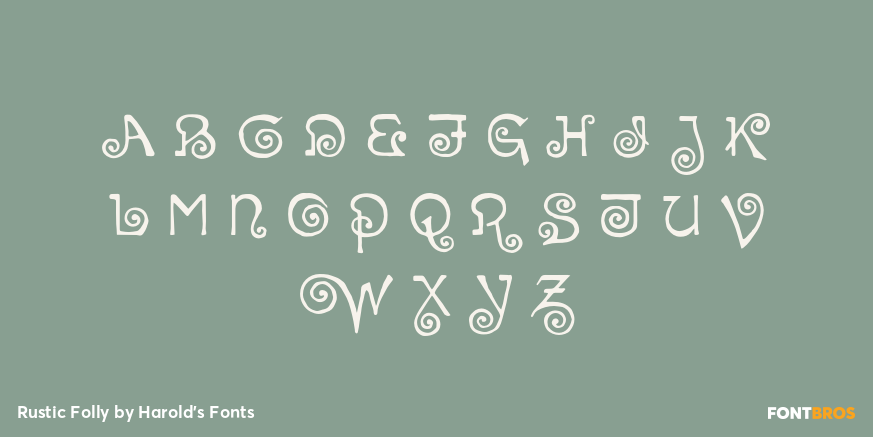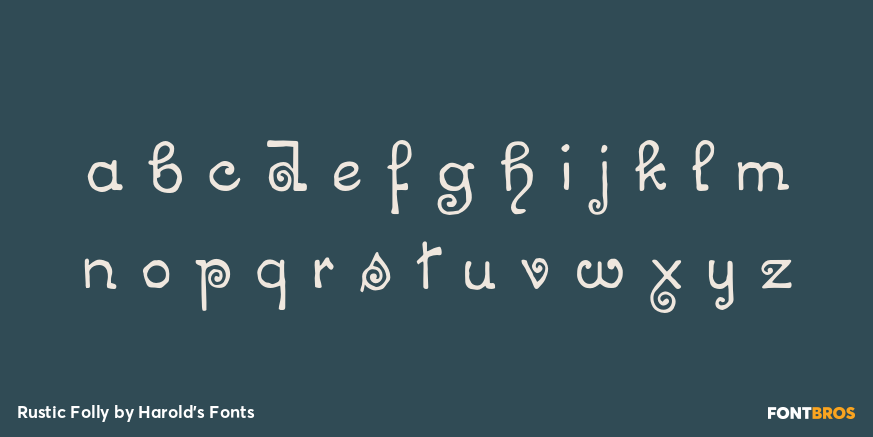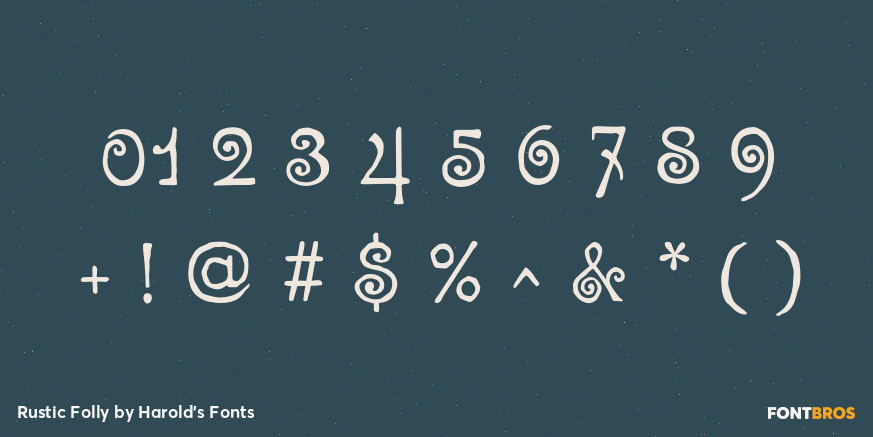
Rustic Folly
Font Family by Harold's Fonts
RUSTIC FOLLY is a curious font: eccentric letterforms and a bumpy texture give it the feel of artistic hand lettering.
This font was inspired by an early 20th-century font called "Chaucer."